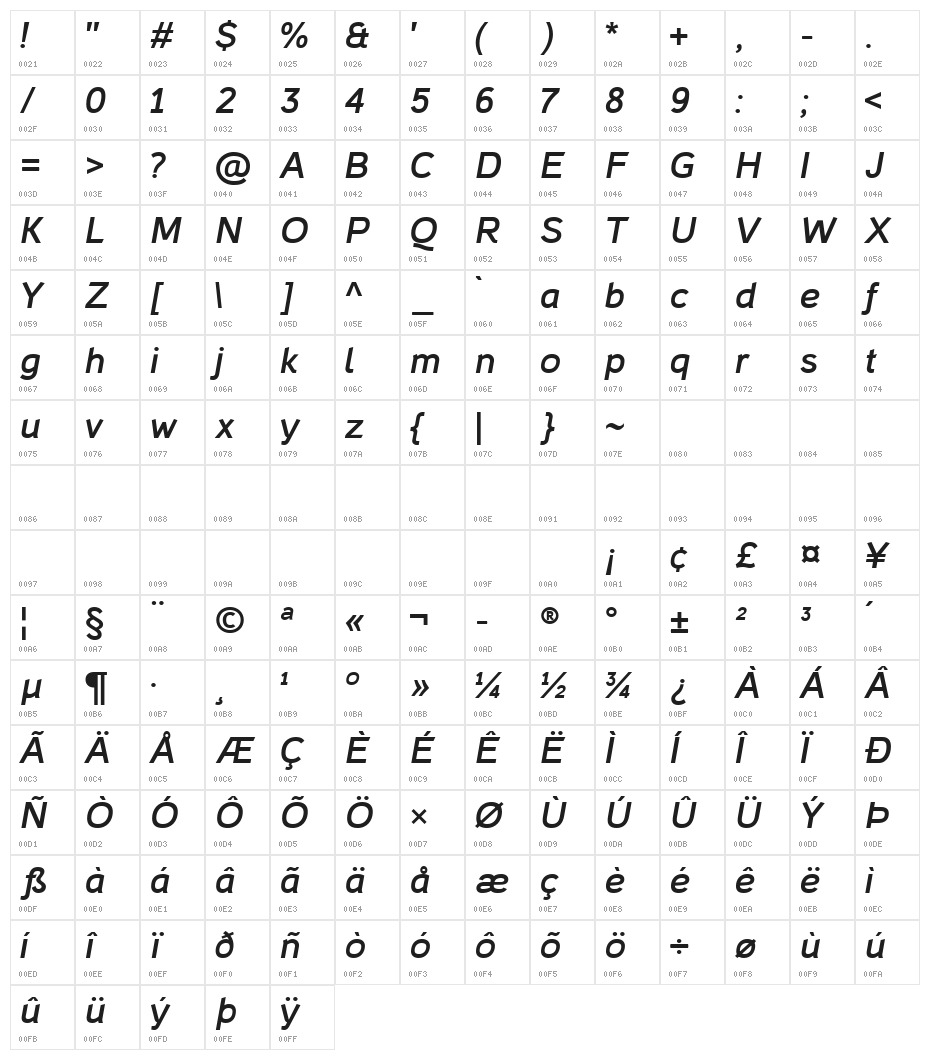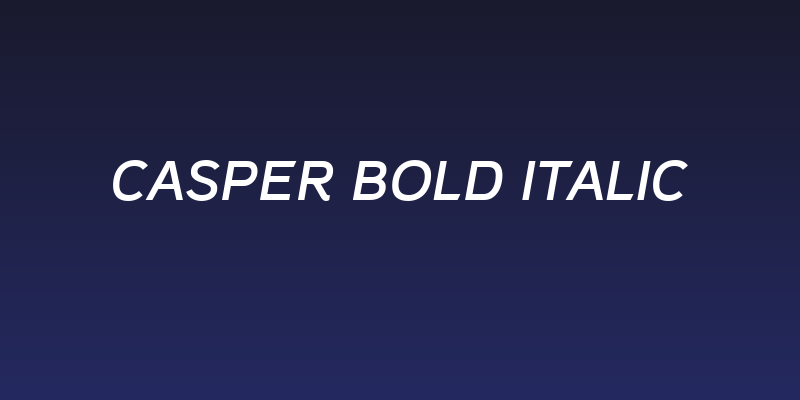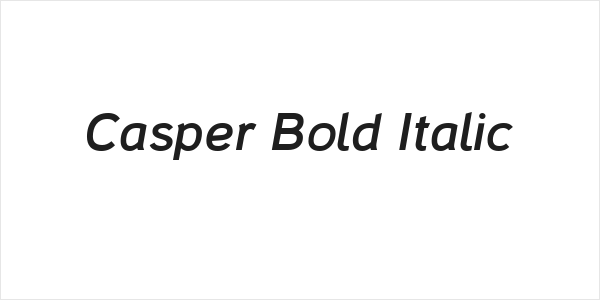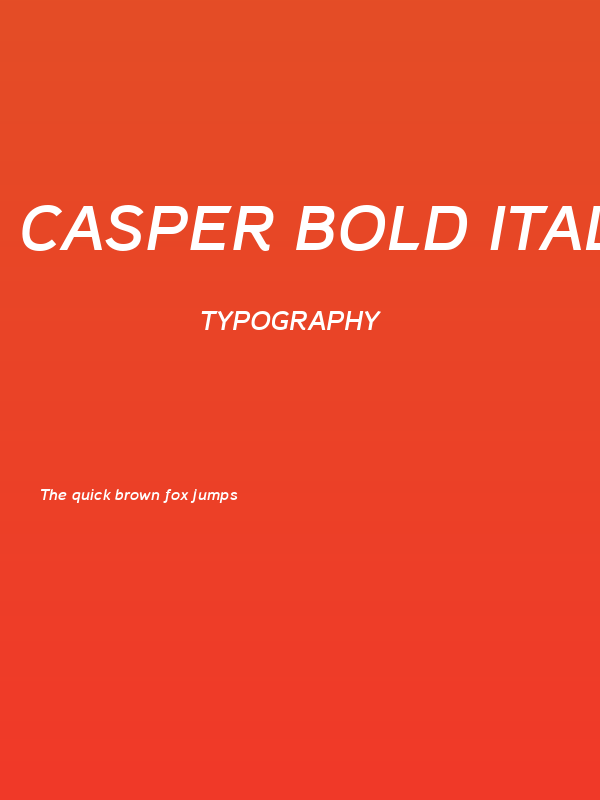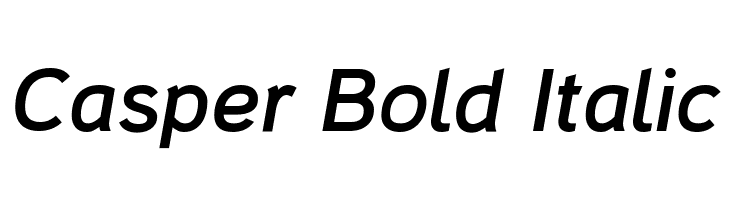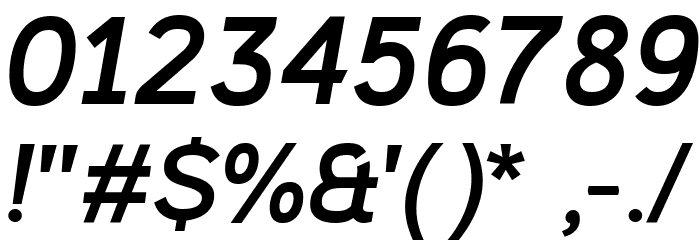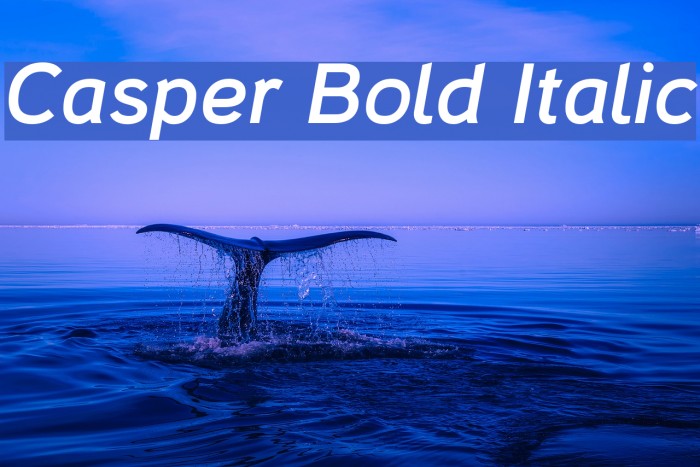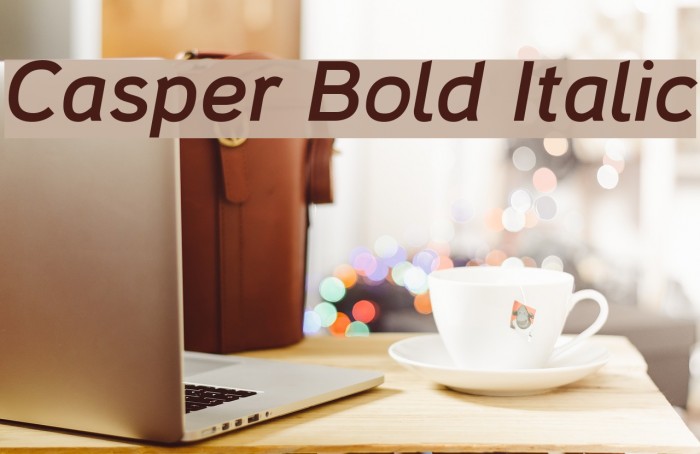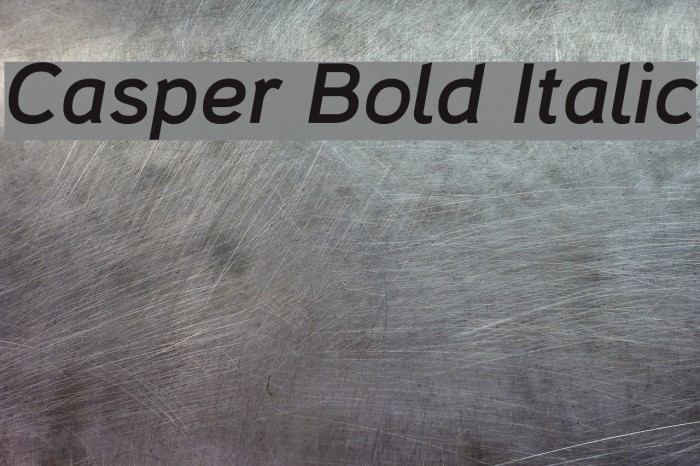
Casper Bold Italic Font
| Cas d'utilisation | Headlines, Logos, Advertising |
| Projets proposés | Ideal for branding, advertising, headlines, and digital media where a bold statement is needed. |